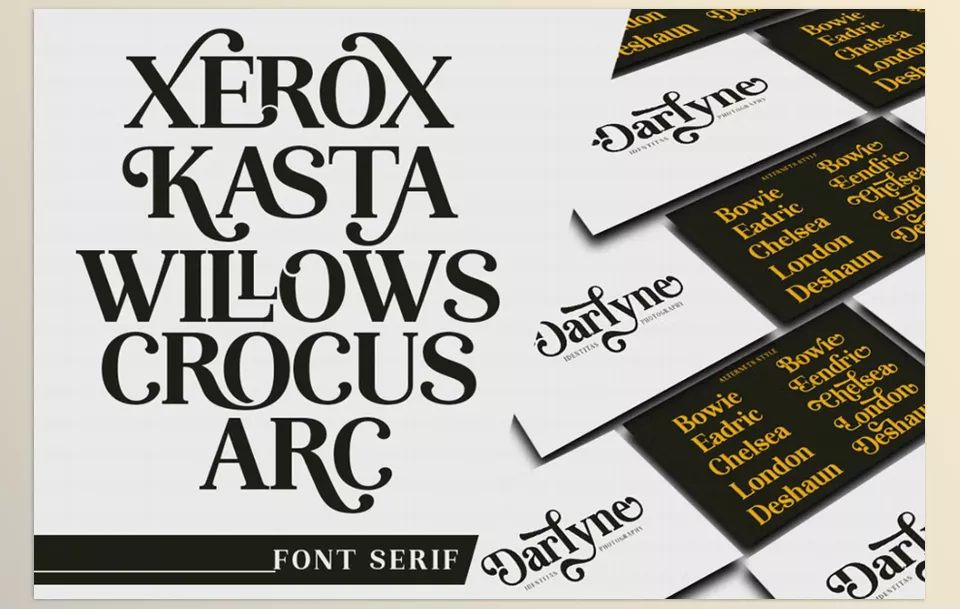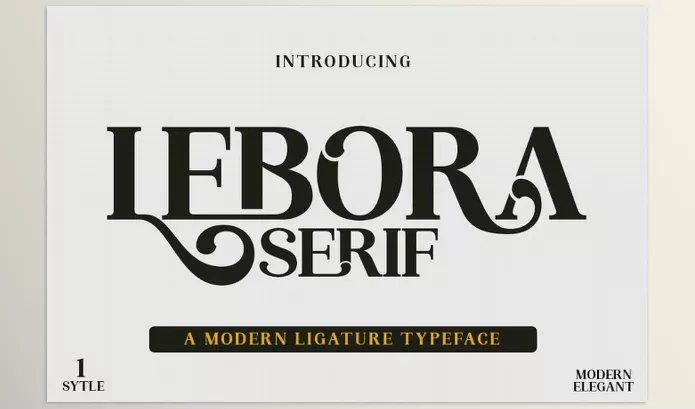
Creative Market – Lebora Font is a contemporary serif typeface that features a unique high contrast binding style which makes it suitable for elegant femininity designs. It is great to make chic logos, fashion titles, and editorial layouts but also useful in branding, apparel design, packing, magazine titles, advertising, and many others. It is easy to access all glyphs and strokes with PUA encoding, thus having all the advantages of user friendliness.
Propertype – Lebora Font Features
• Complete Character Set: This consists of all upper and lower characters, giving a broader scope of design.
• Automatic Ligatures: Improves the flow and beauty of text in a document.
• Multilingual Support: Includes numerous characters of different languages.
• Comprehensive Numbers and Punctuation: All requirements of any design are met adequately.
• Simple glyph access: All special characters and strokes can be accessed with PUA encoding.
Creative Market – Lebora Font Preview
Image 1: Elevate your designs with a timeless, high-contrast serif font perfect for modern branding and fashion.
Creative Market - Lebora Font - Elevate your designs with a timeless, high-contrast serif font perfect for modern branding and fashion.
Image 2: Add a touch of elegance to your projects with a refined font that effortlessly blends sophistication and style.
Creative Market - Lebora Font - Add a touch of elegance to your projects with a refined font that effortlessly blends sophistication and style.